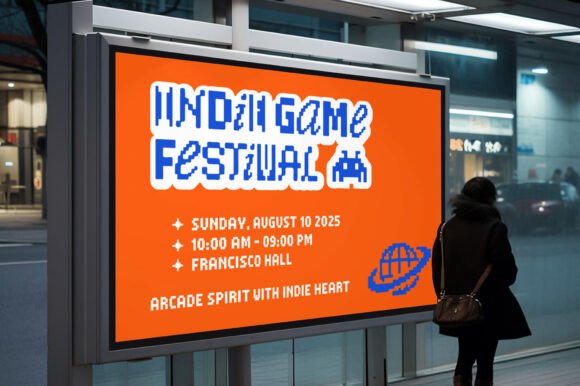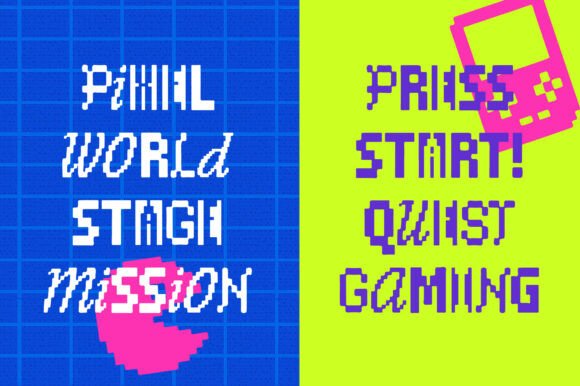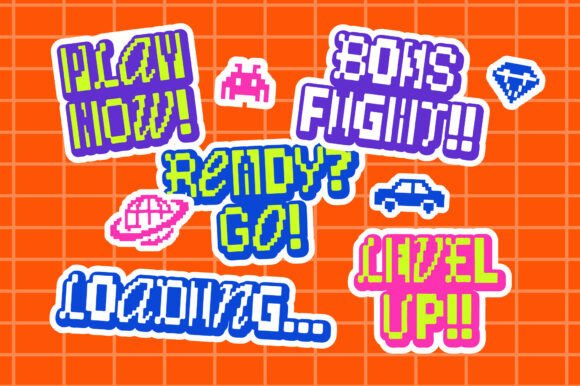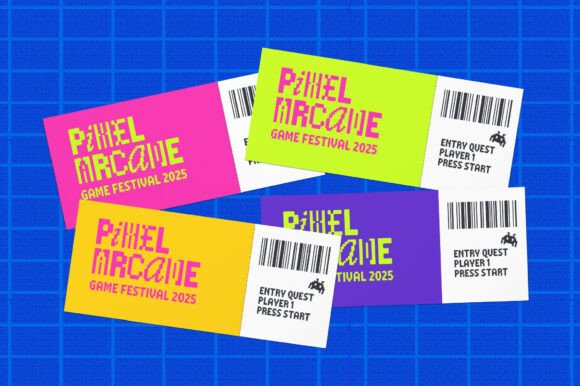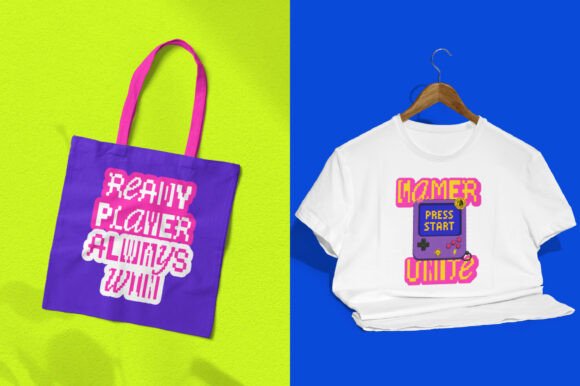
Ransom Pixel Font – Free Download
Introduction to Ransom Pixel Font
Ransom Pixel is a display typeface crafted for designers who thrive on retro game vibes and bold branding.
| 👤 Author | Edignwn Type |
This ransom-inspired font is built from 4 pixel-styled cuts, offering maximum flexibility in creating contrasting typography and allowing designers to mix and match for striking results Whether for gaming events, indie titles, or nostalgic merch design, Ransom Pixel brings digital nostalgia and an experimental edge into modern design.
Key Features of Ransom Pixel Font
Why Choose Ransom Pixel Font?
Ransom Pixel Font offers exceptional quality and versatility, making it a valuable addition to your design toolkit. Whether you’re creating for personal projects or commercial use, Ransom Pixel Font delivers professional results.